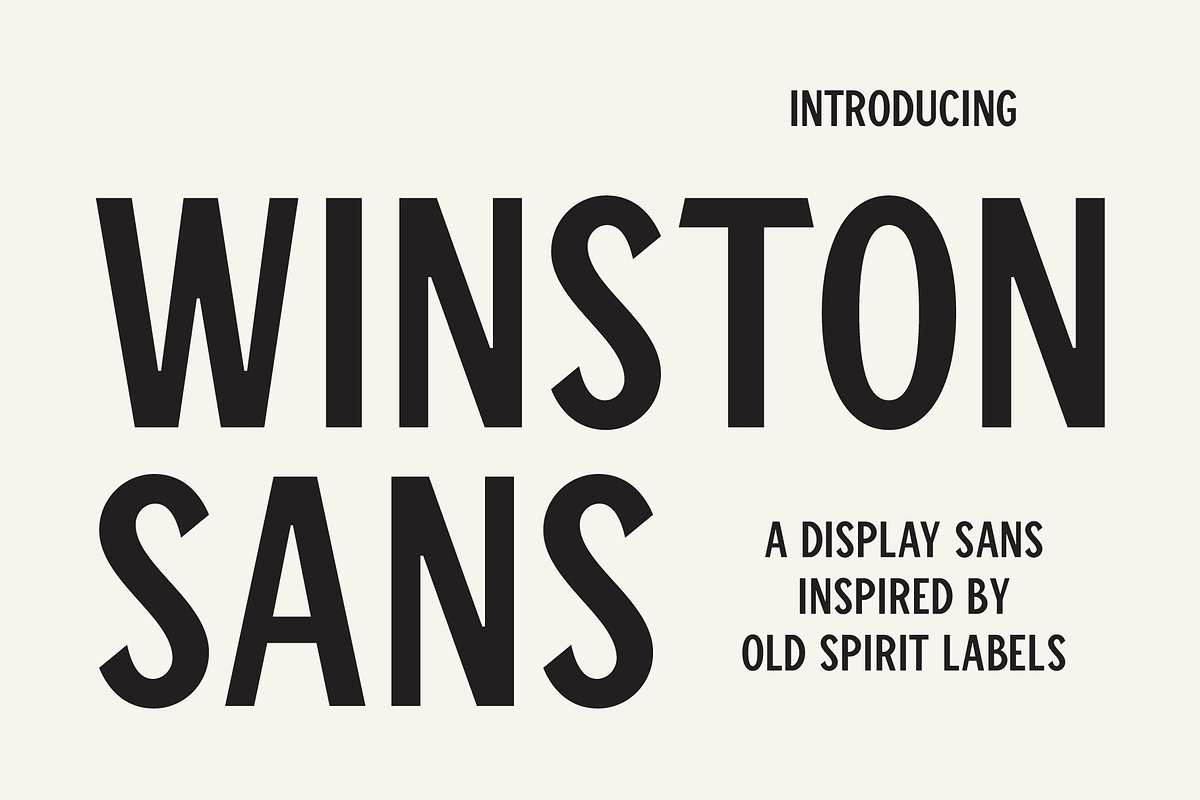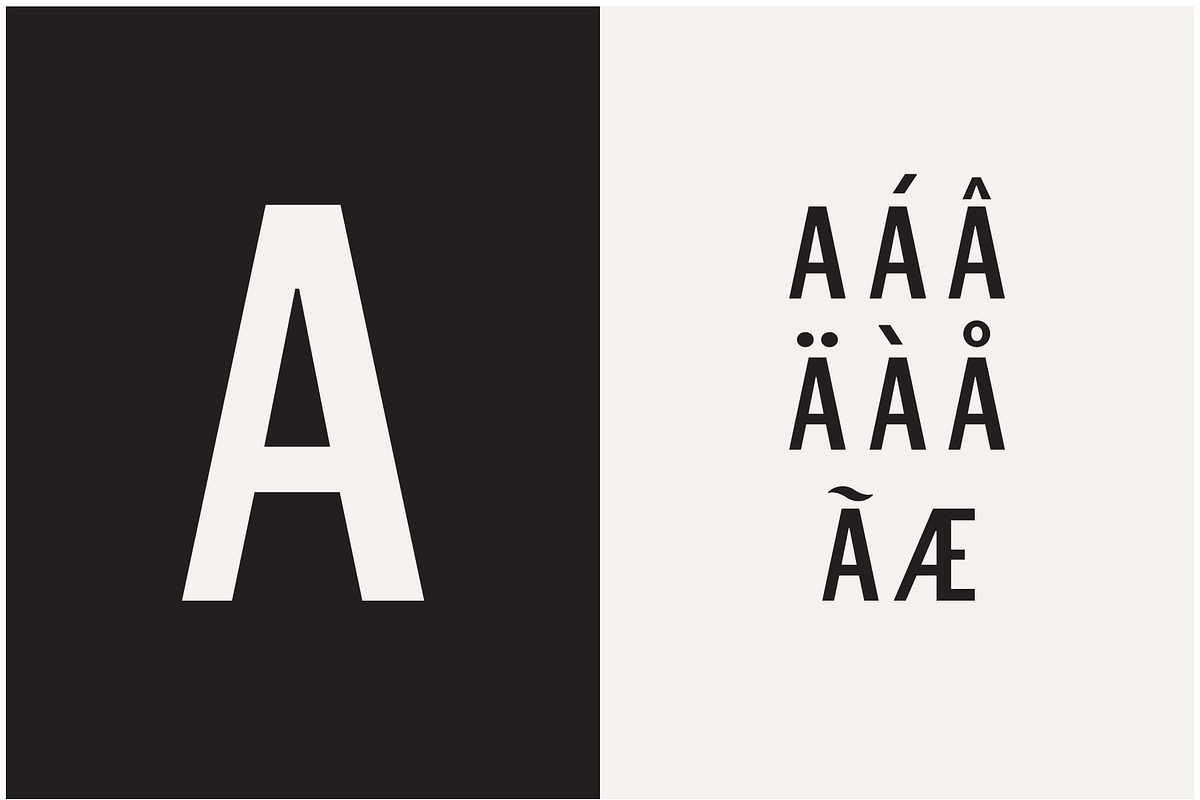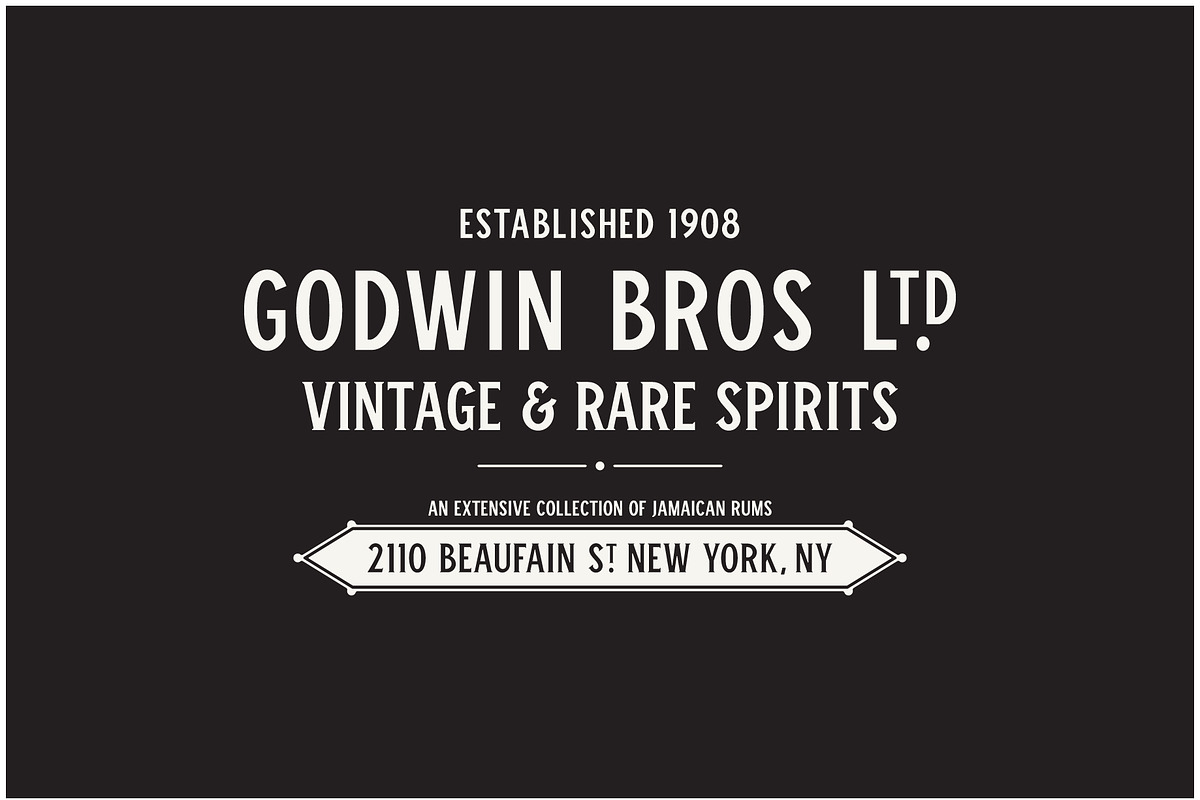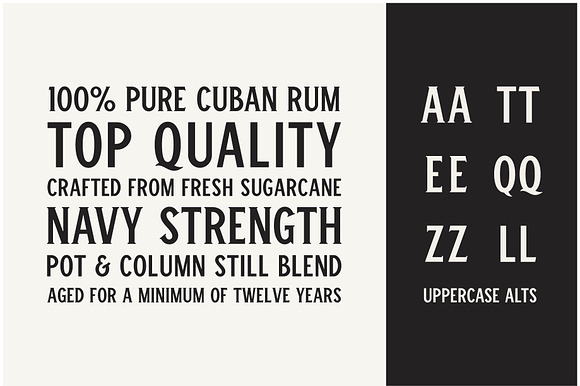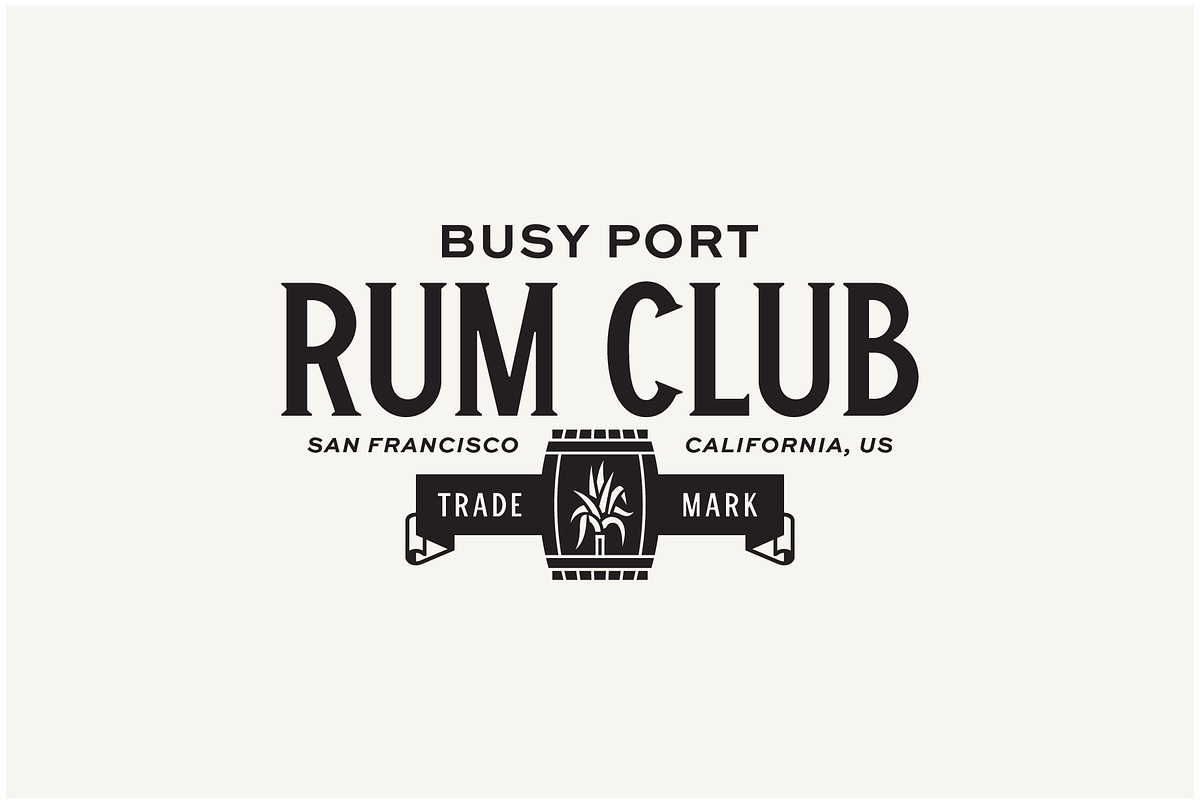
Winston Sans Typeface
Inspired by old spirits labels, the Winston family is a perfect mix of vintage and modern. Winston Sans is great for brand identity, package design, poster design, and more!
US and Western European language support
Winston Sans Typeface by Bebop Font Foundry fits naturally into Branding, posters, packaging, typography.